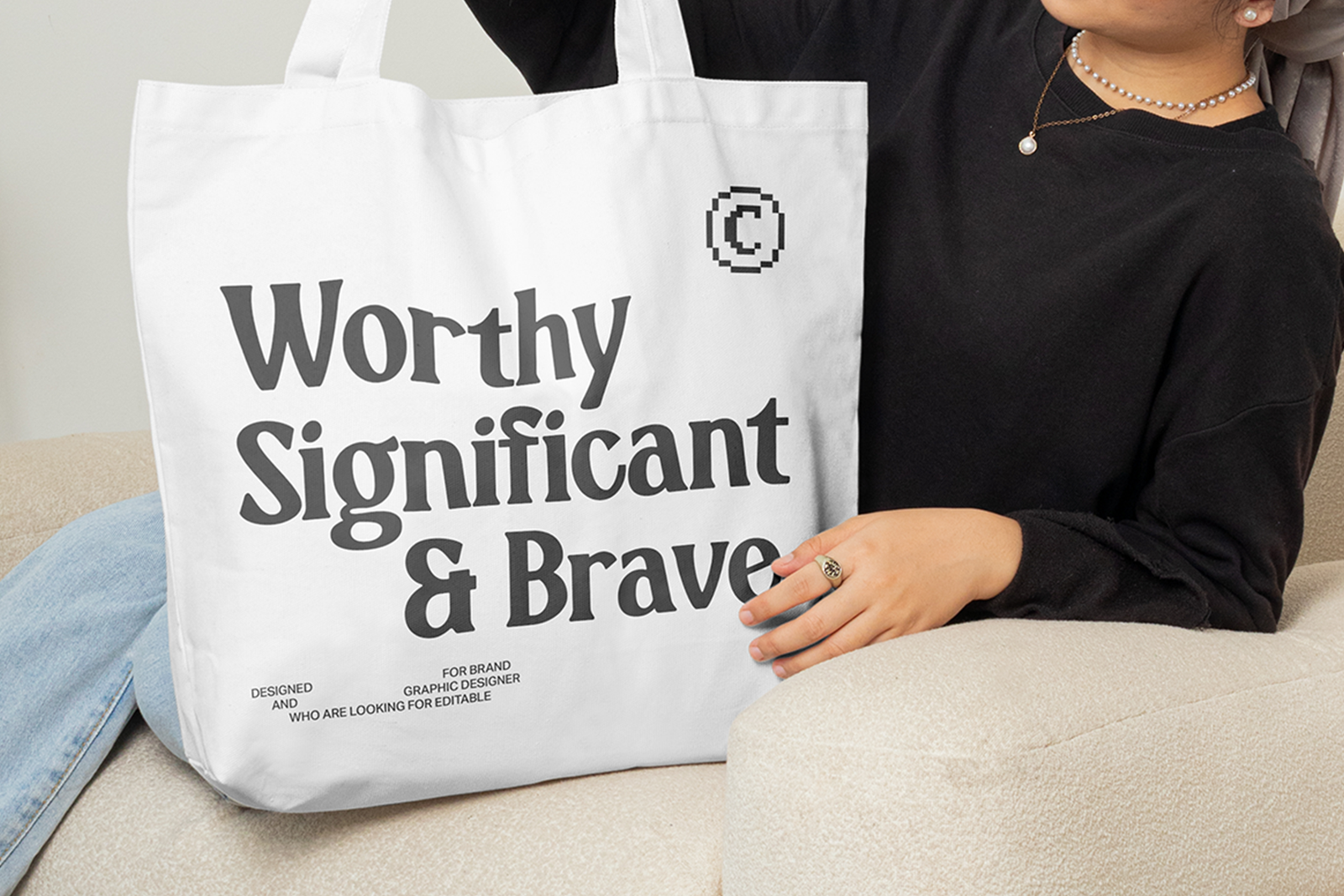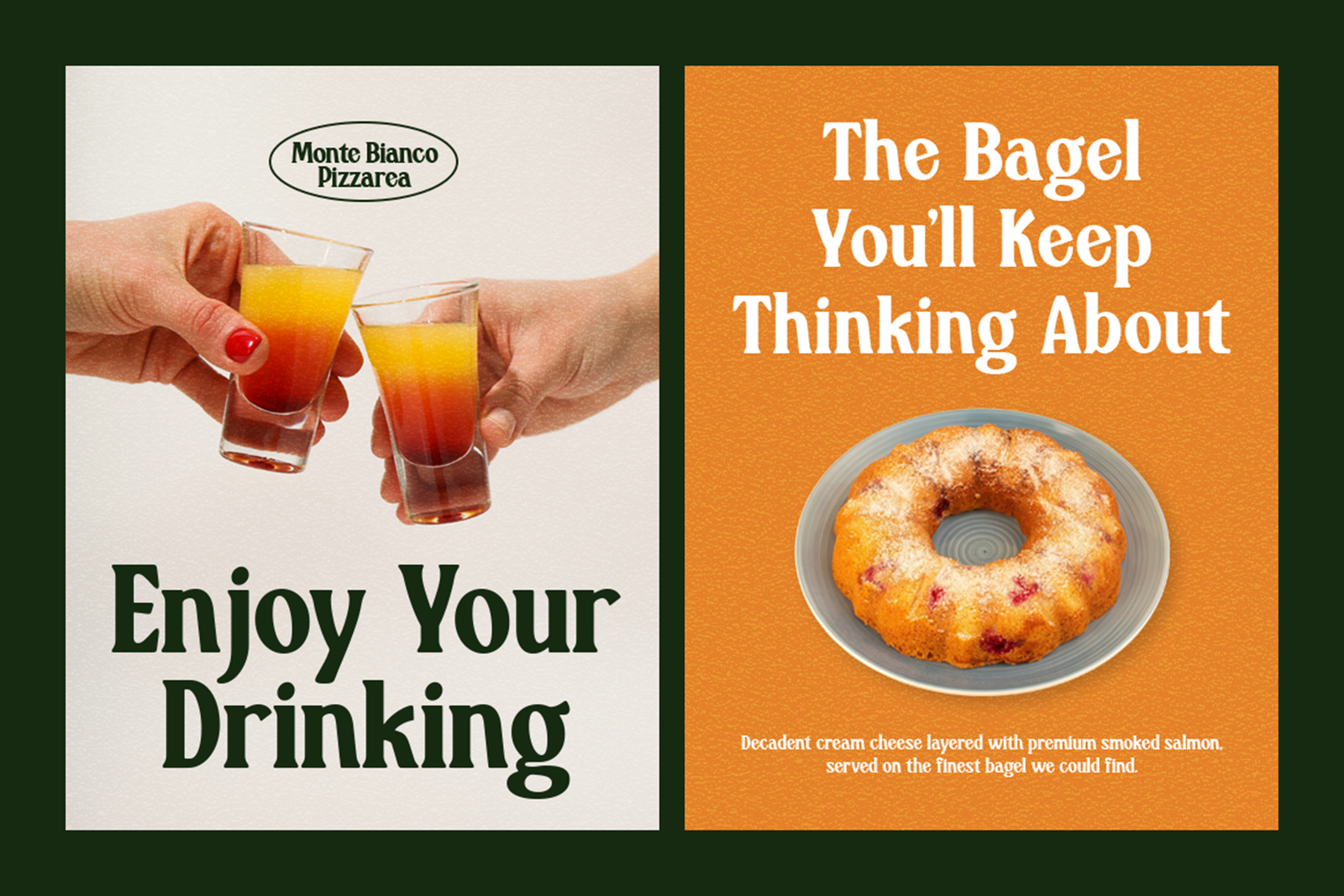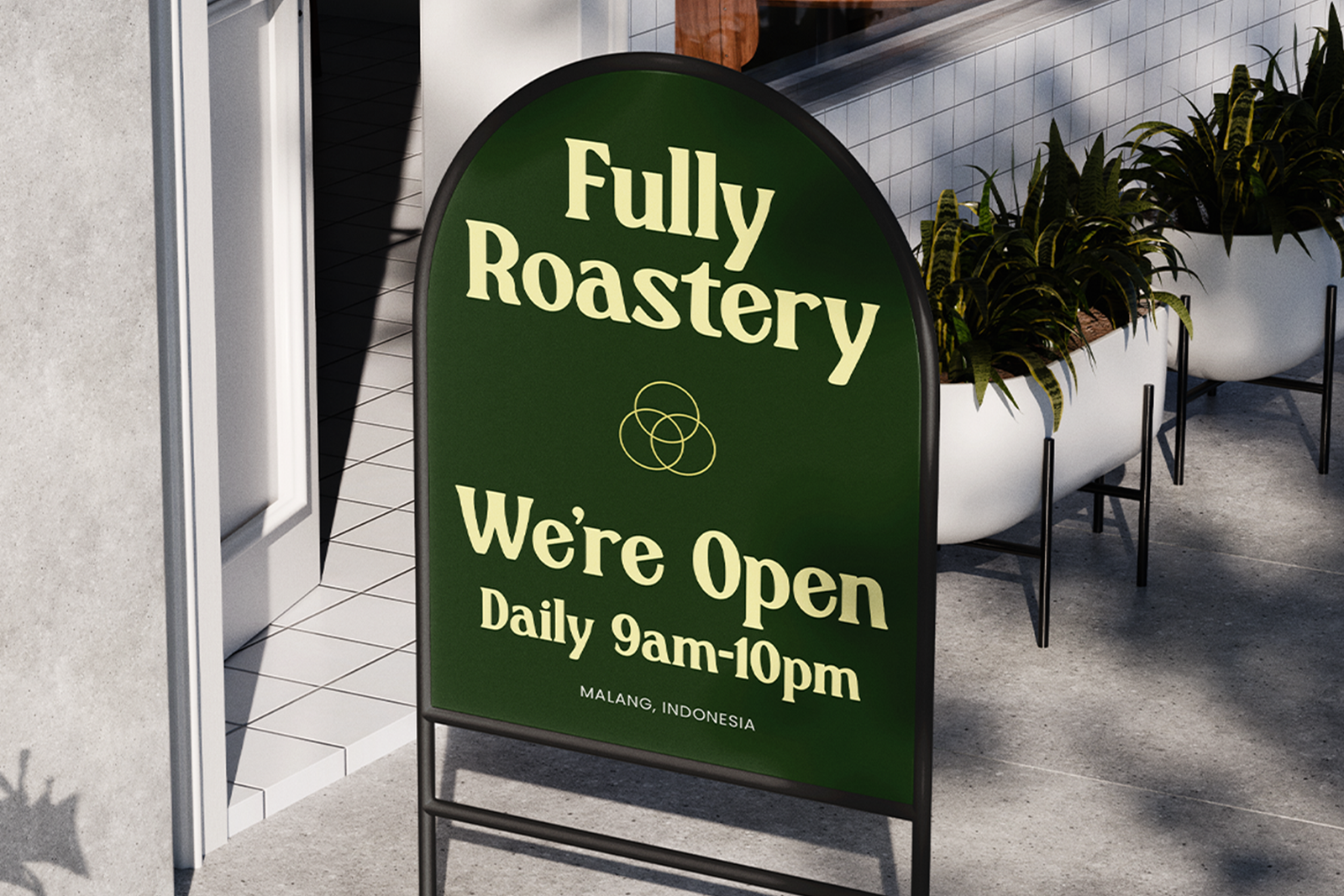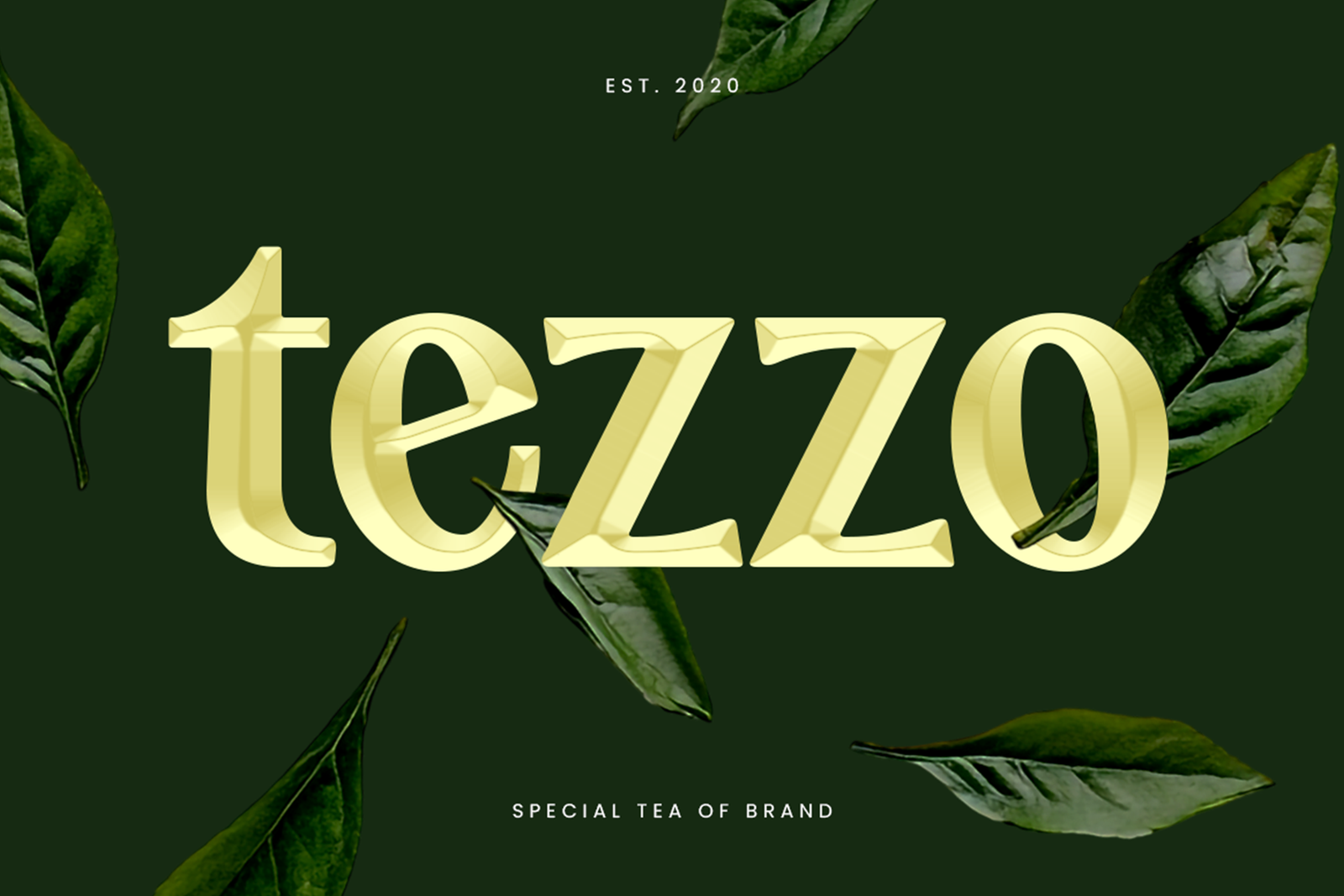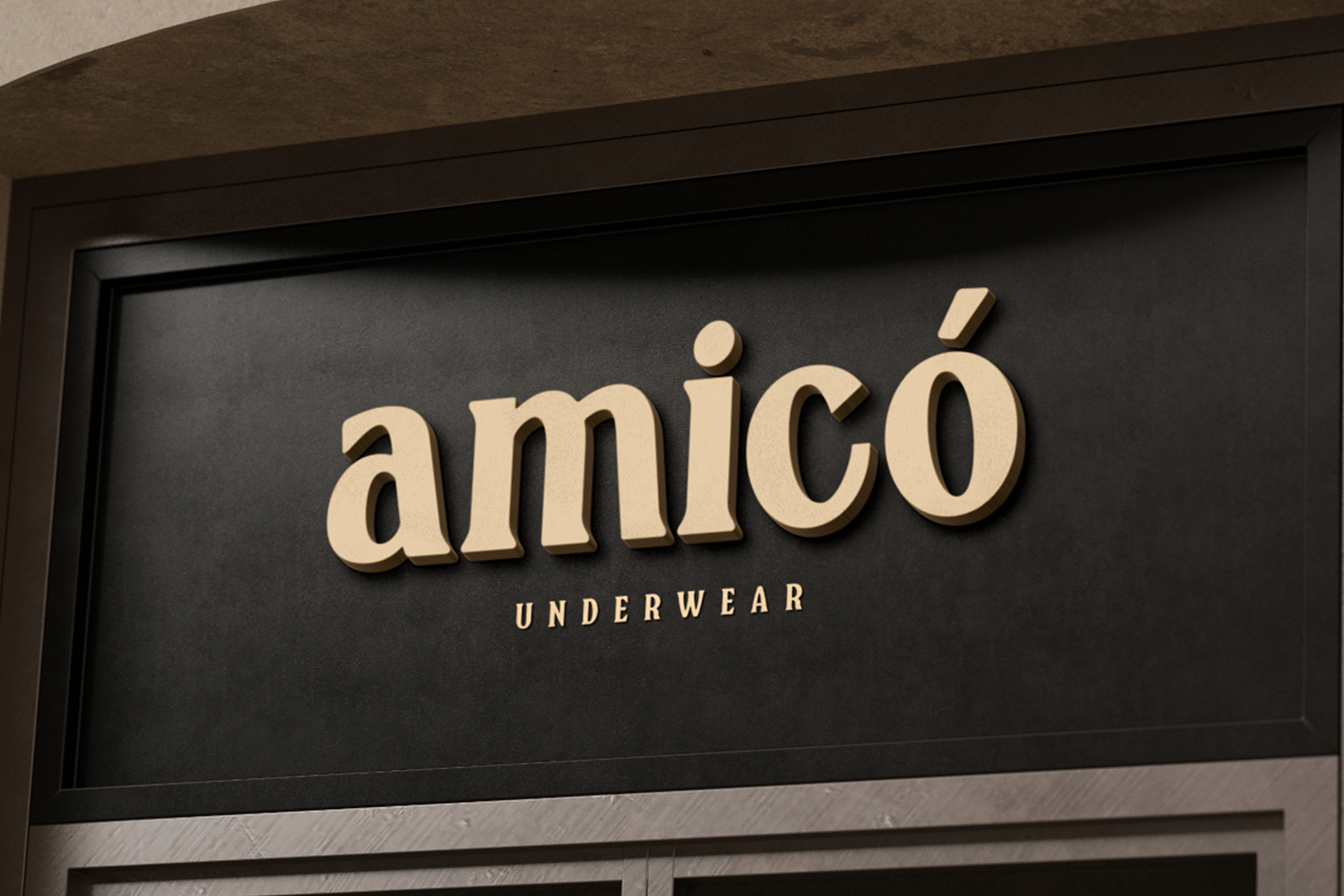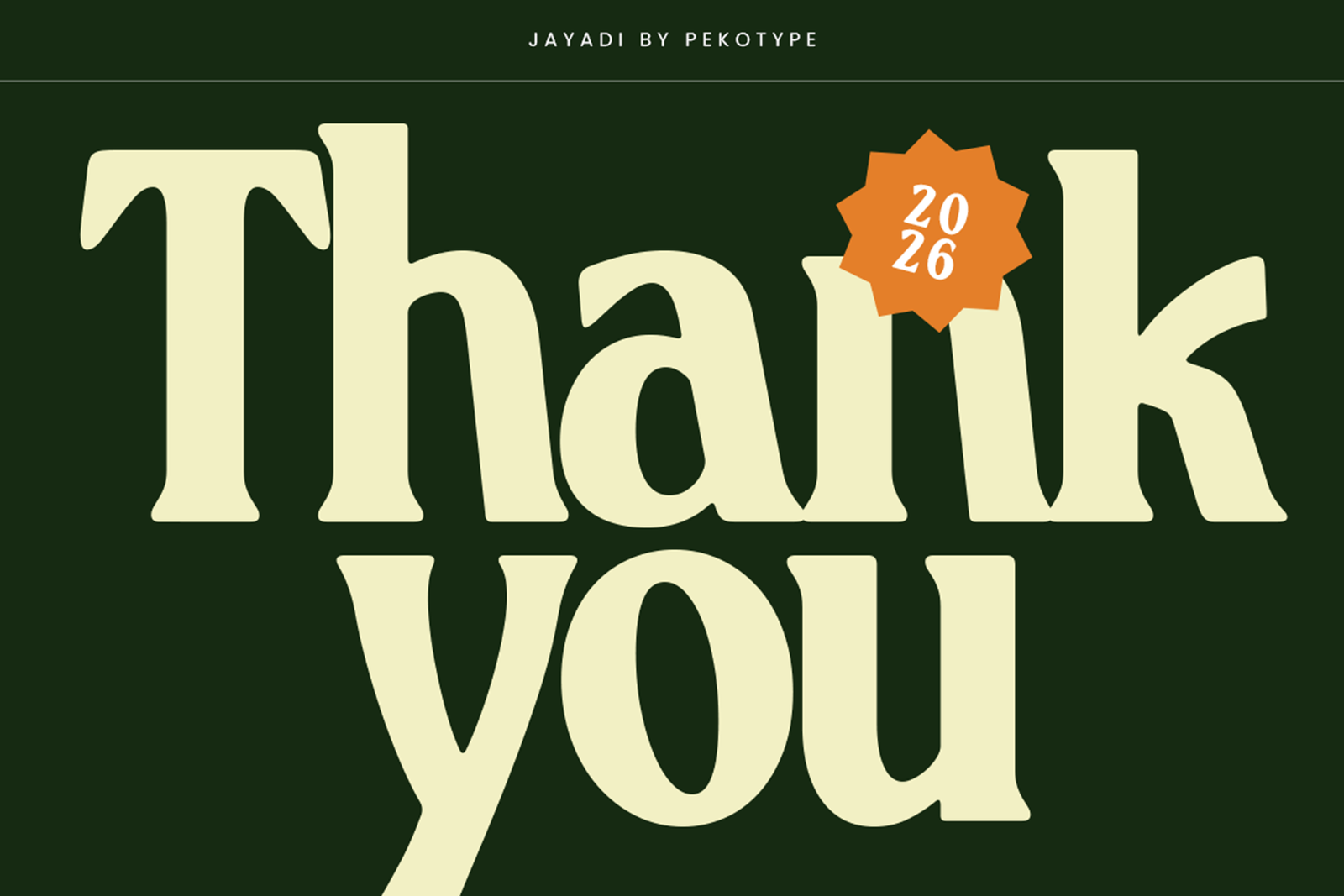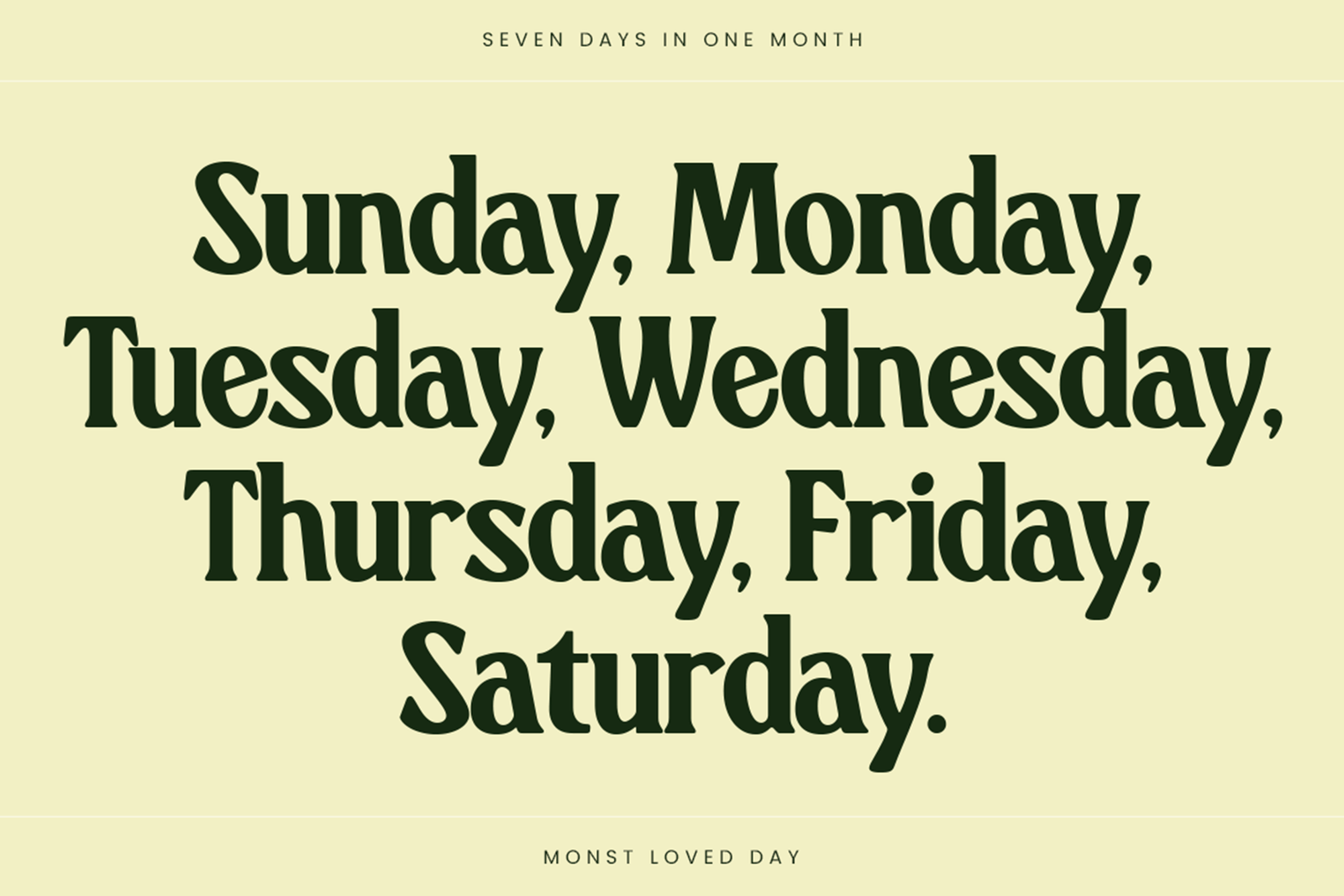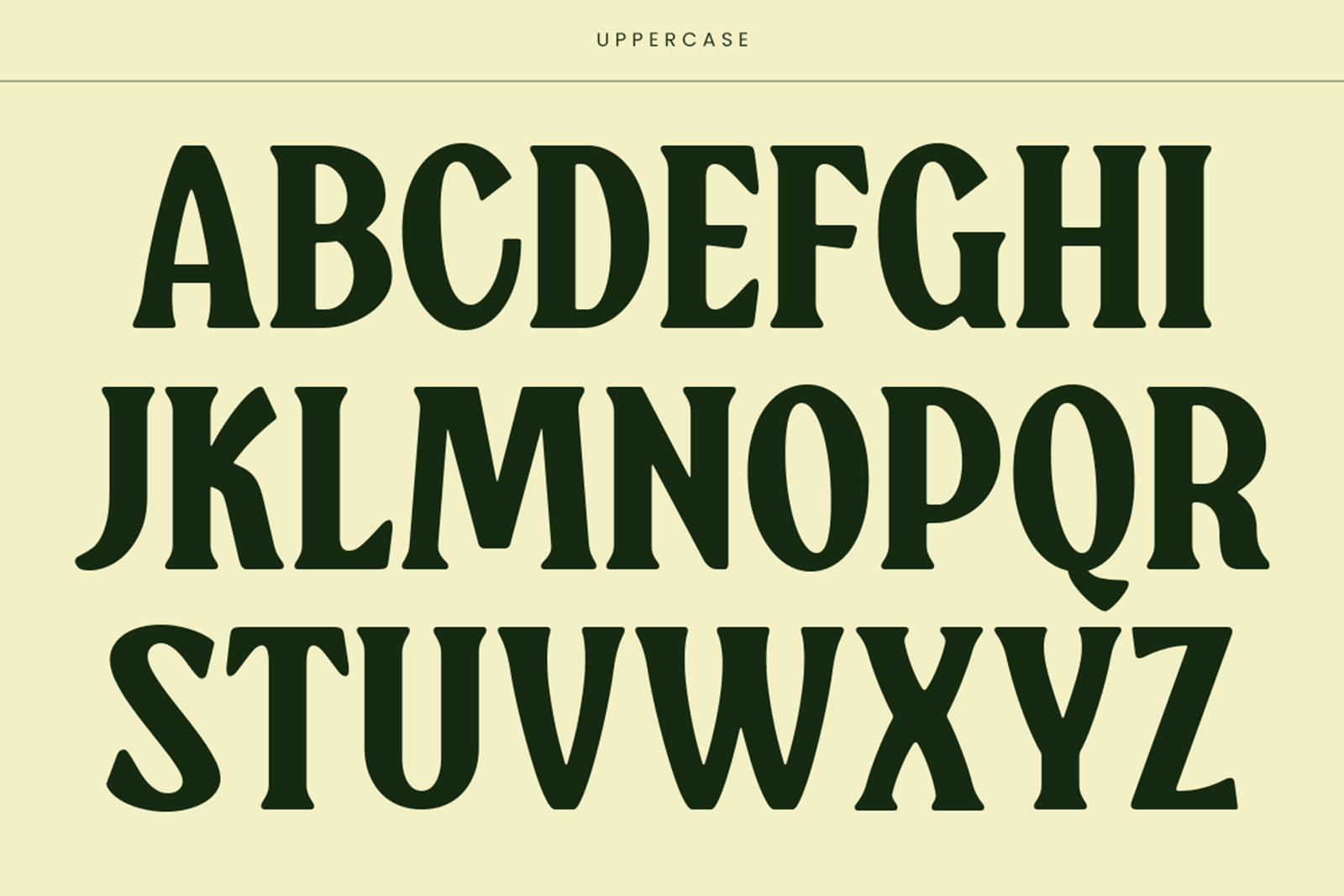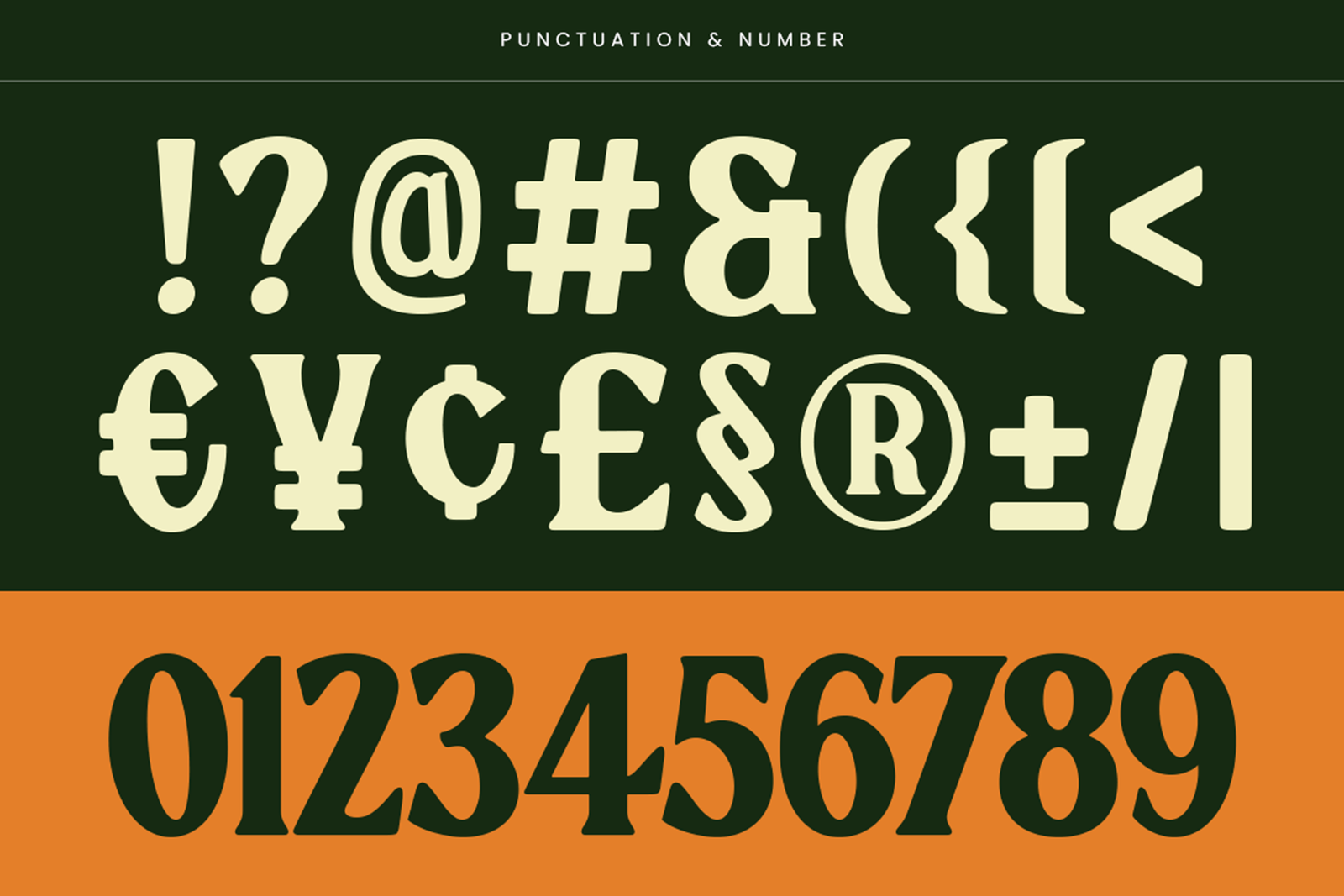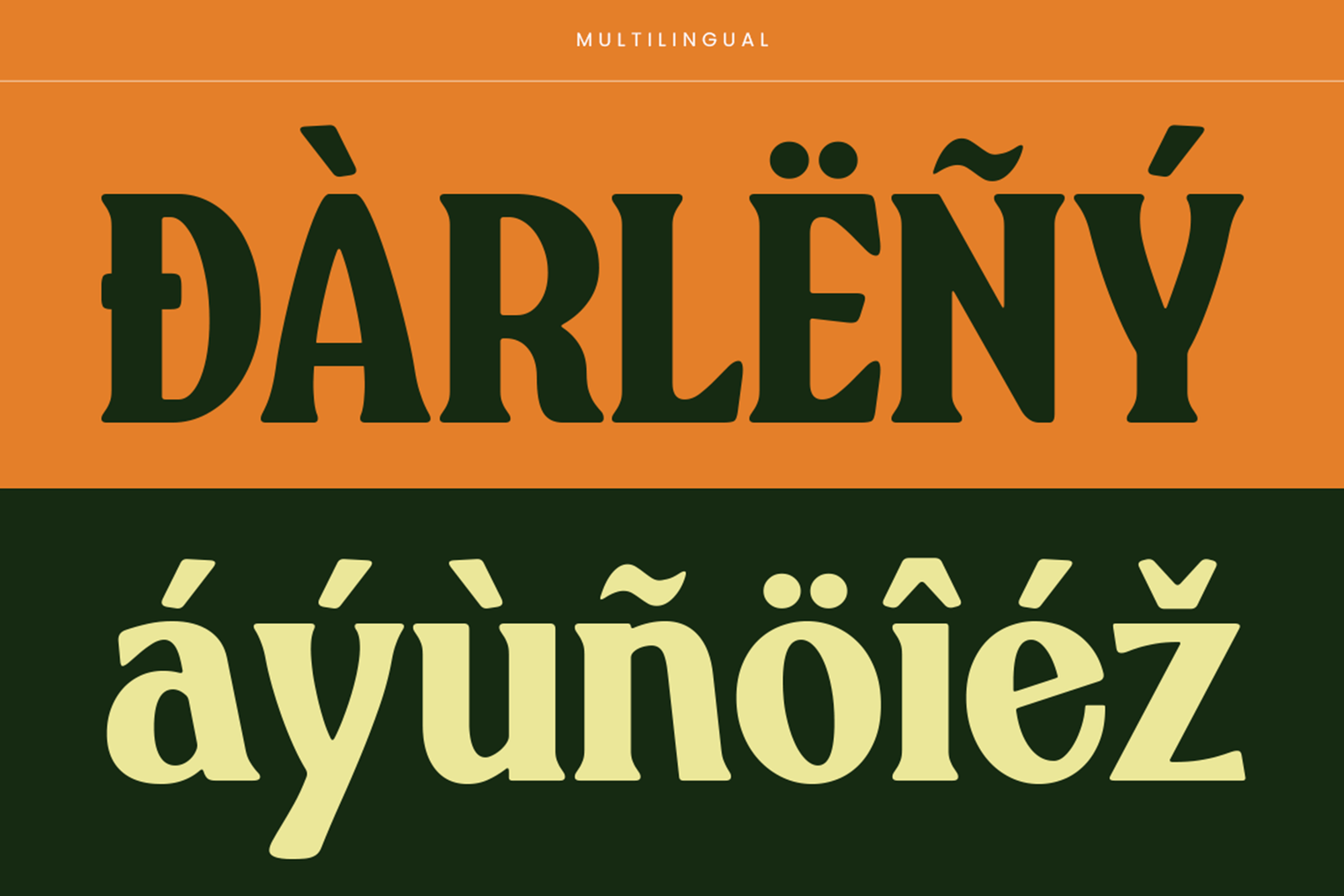
JAYADI Font is an elegant retro serif display typeface with vintage-inspired shapes. Perfect for branding, logos, packaging, posters, and premium creative projects.
JAYADI Font is a retro serif display typeface designed to bring a classic, elegant, and timeless personality to modern creative projects. Inspired by vintage typography, this font features bold serif details, smooth curves, and balanced letterforms that create a sophisticated yet approachable visual style. Its distinctive shapes make headlines, logos, and short text compositions look more memorable and refined.
This versatile typeface is perfect for branding, logos, packaging, posters, editorial layouts, restaurant identities, café menus, fashion labels, and lifestyle projects. With its vintage charm and professional appearance, it works beautifully for premium products, beverage brands, boutique businesses, magazines, and retro-inspired campaigns. Whether you are designing a luxury logo, product label, promotional artwork, or social media content, this serif font helps create a stylish and confident impression.
The font includes uppercase and lowercase characters, numbers, symbols, punctuation, and multilingual support for flexible design applications. JAYADI Font combines traditional serif aesthetics with modern usability, making it a great choice for designers who want to add an elegant and nostalgic touch to their work. Use this display font to create distinctive visuals across digital and print projects, from branding materials to packaging, advertisements, and creative layouts.